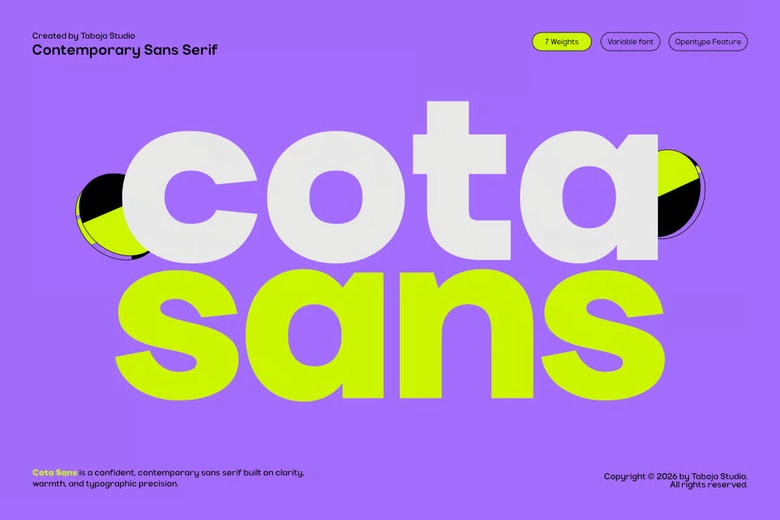
Cota Sans Font
Cota Sans Font was created to be clear and confident without being too much for the viewer. With so many visual distractions today, Cota Sans helps bring order. This modern sans-serif typeface is all about clarity, warmth, and precision, giving structure and calm to any design.
Each curve, space, and line in Cota Sans is designed to feel logical and approachable. Drawing inspiration from classic grotesque typefaces, Cota Sans updates these ideas for today’s design needs.
Cota Sans has a neutral but welcoming tone. Its subtle humanist details soften the shapes, making it a good fit for branding, editorial, and digital projects. Cota Sans is flexible and responsive, with variable weights to suit modern workflows.
Cota Sans offers weights from Extra Light to Extra Bold, giving designers control over hierarchy, style, and rhythm while keeping a consistent look. It stays balanced and easy to read, whether for bold headlines or lighter body text.